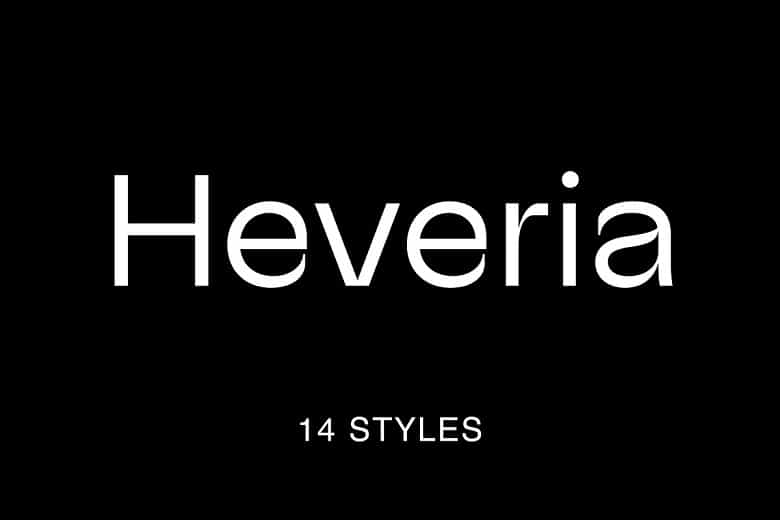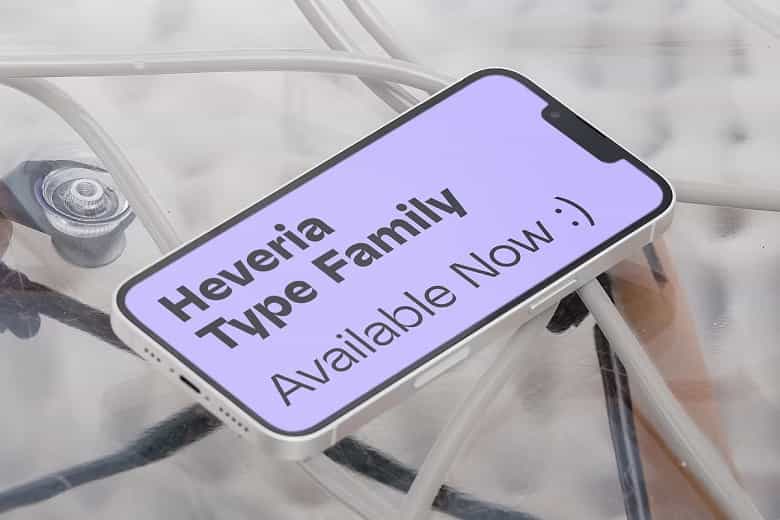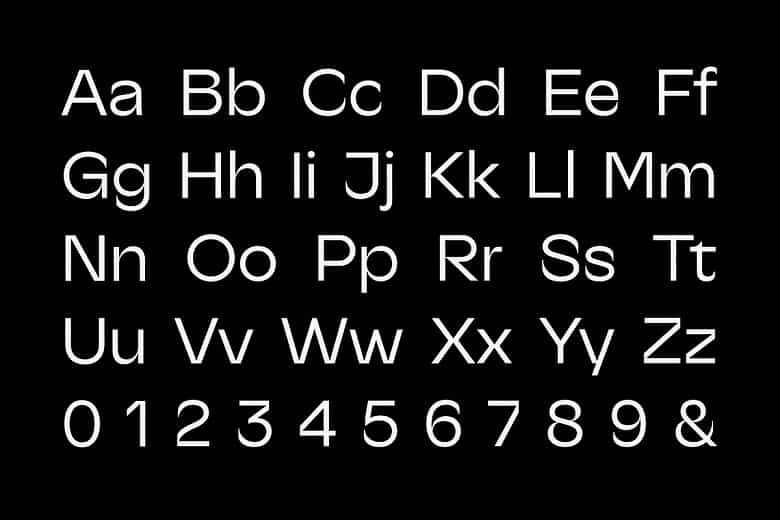
Heveria is a font that is of the modern san-serif category and contains contemporary styles and characteristics. It has both the Roman and Italic styles and comes in 7 weights with a total of 14 styles. Thanks to its clear and unique style, it is ideal for applications, websites, and branding and is suitable for various projects with sturdy visual identites and flexible designs.